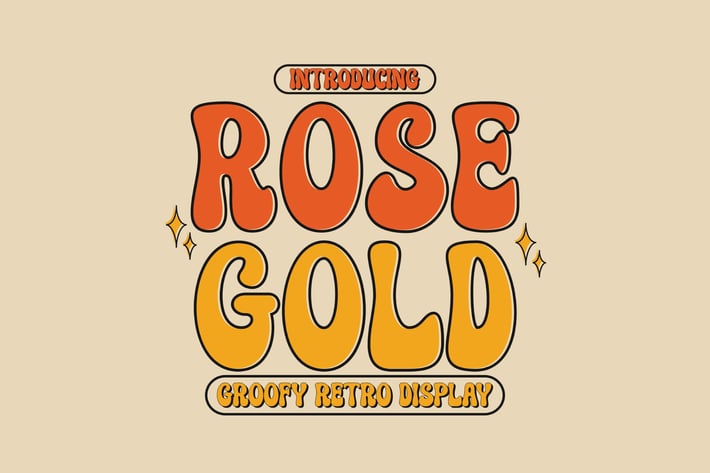
Rose Gold - Groovy Font
Rose Gold feels playfully nostalgic and delivers an incredible vintage retro aesthetic. Use this display font to add that special retro touch to any design idea you can think of!. Masterfully designed to become a true favorite, this font has the potential to bring each of your creative ideas to the highest level!
- Unique Letterforms